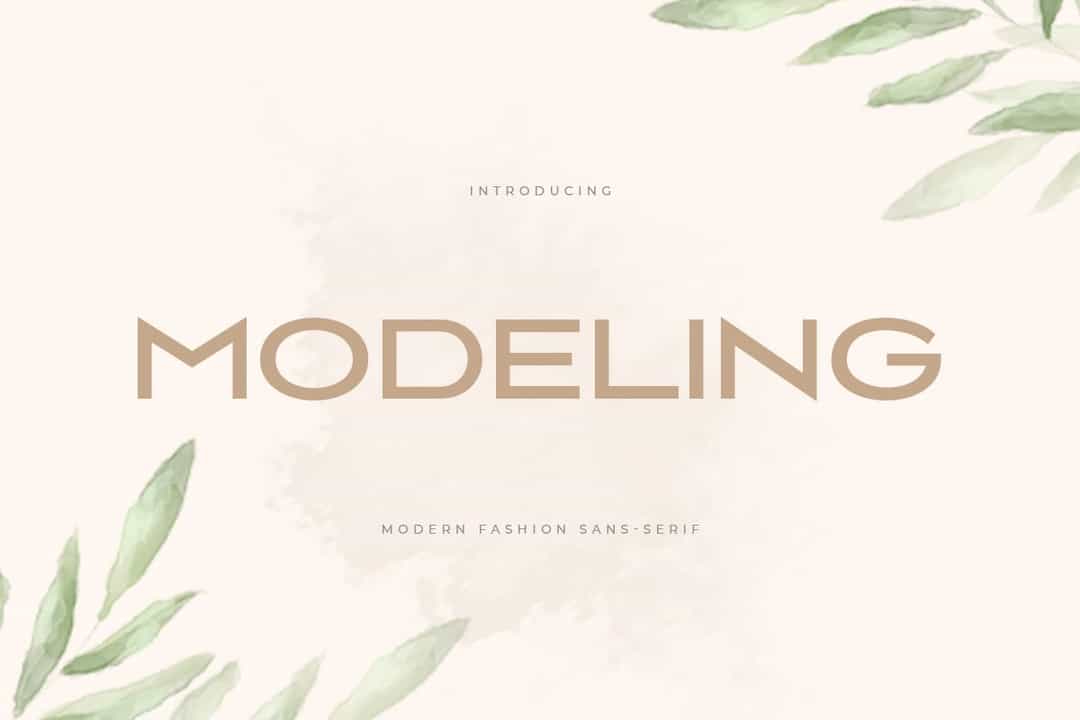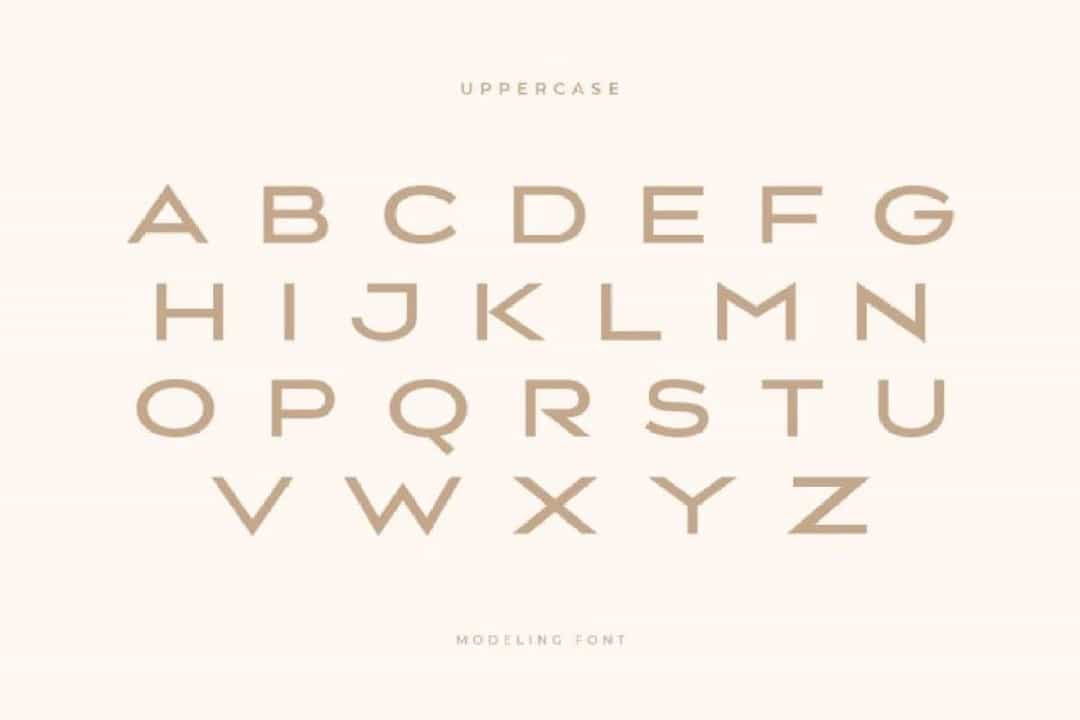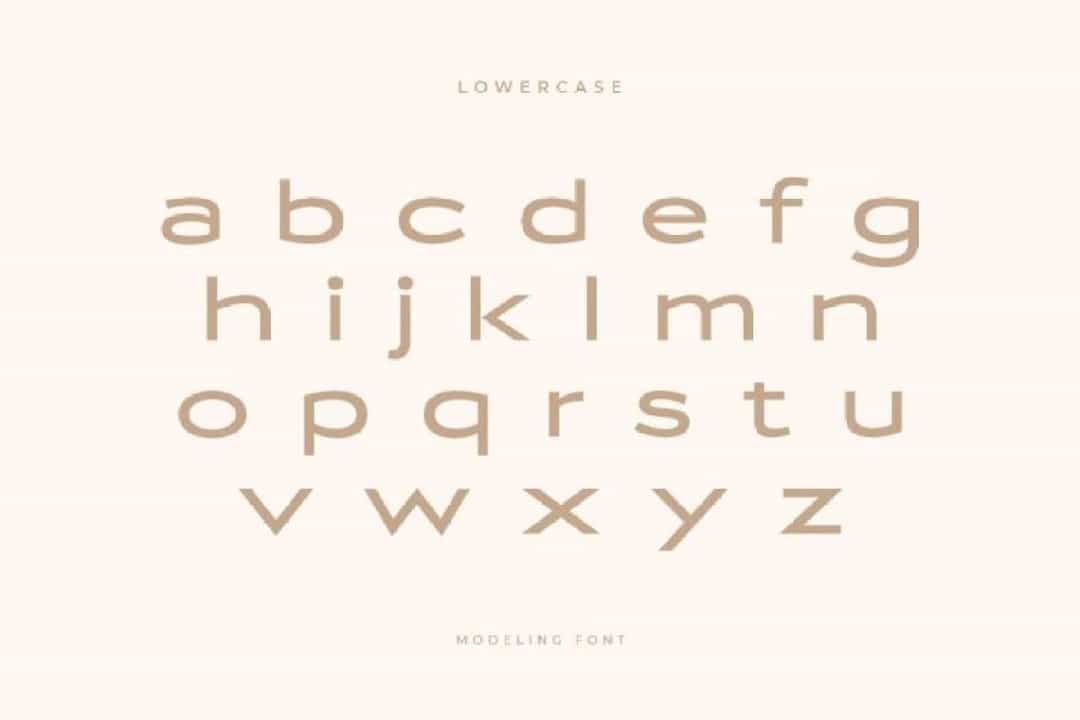
Modeling is a clean sans serif font that represents simplicity and precision. Its crisp lines and subtle curves give off an sophisticated vibe. Perfect for a range of design tasks Modeling adds an modern flair, to any text or design layout.